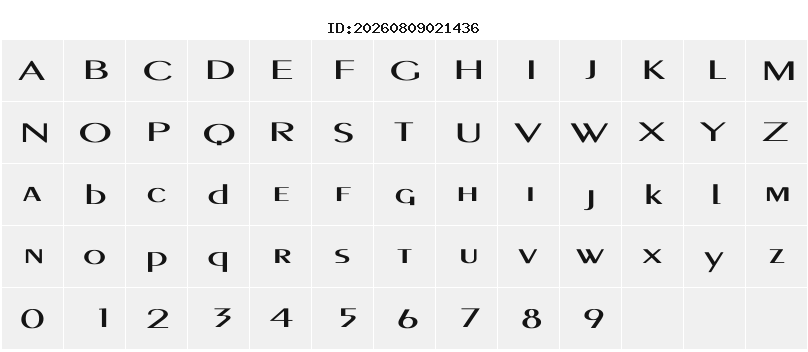
About PigNoseTyp Bold.ttf
PigNoseTyp Bold.ttf is a modern, elegant sans-serif font designed for ultimate readability and visual harmony. Perfect for branding, headlines, web design, and print materials.